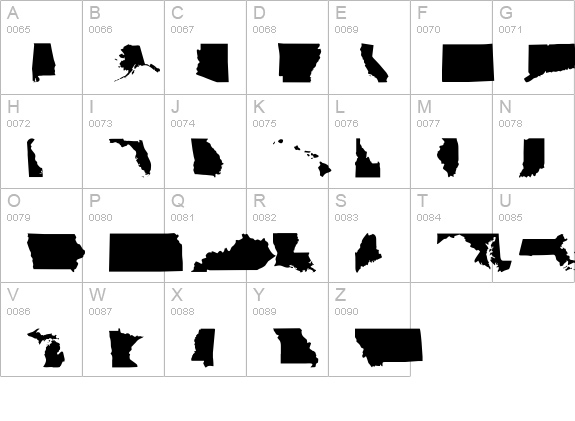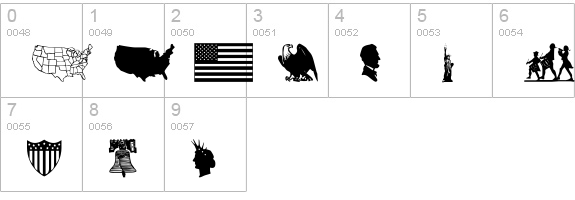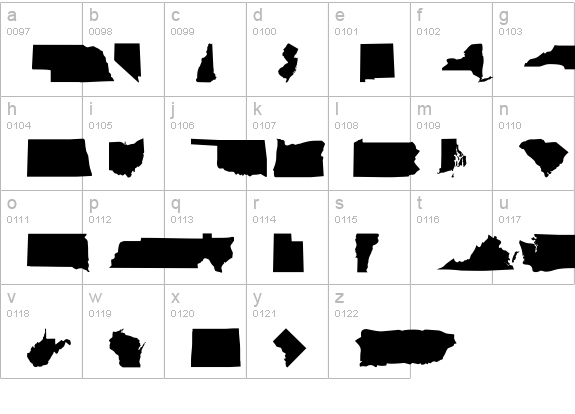
Introducing US-Bats font, a versatile and captivating typeface that is sure to add a touch of creativity to any design project. This font is not only visually stunning, but also incredibly functional, making it suitable for a wide range of applications. US-Bats font combines bold and edgy elements with a touch of elegance, resulting in a truly unique and eye-catching design. Its intricate details and carefully crafted strokes give it a distinct personality that will set your designs apart from the rest. One of the most remarkable aspects of US-Bats font is that it is freely available to download at FontsMarket.com. This means that you can easily access this exceptional font without any cost, making it an invaluable resource for designers, students, and anyone looking to add a special touch to their projects. Whether you're working on a logo, a website, a poster, or any other creative endeavor, US-Bats font offers a wide range of characters and styles to choose from. From sleek and modern to bold and expressive, this font has it all. With its versatility and aesthetic appeal, US-Bats font is guaranteed to make a lasting impression on your audience. So why wait? Download this incredible font for free at FontsMarket.com and unlock a world of design possibilities today.